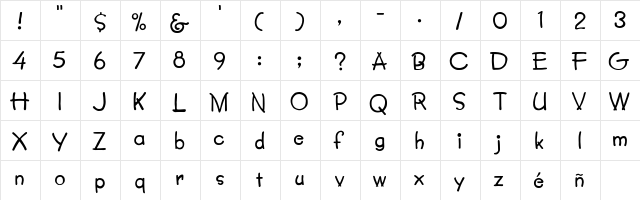
Beachbank Regular
Design Context for Beachbank Typeface
Beachbank offers clean, dependable letterforms without strong stylistic allegiance, making it a practical choice for designers who need flexibility.